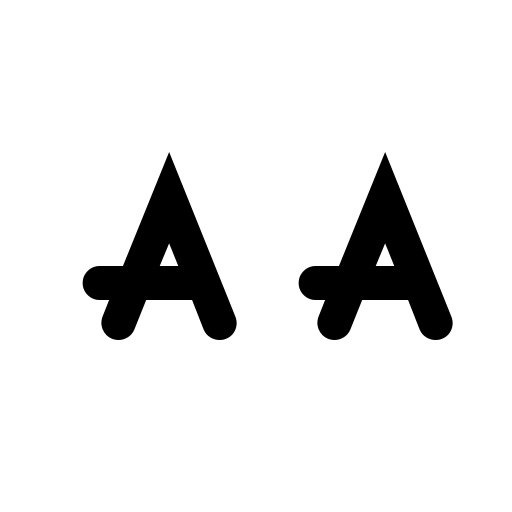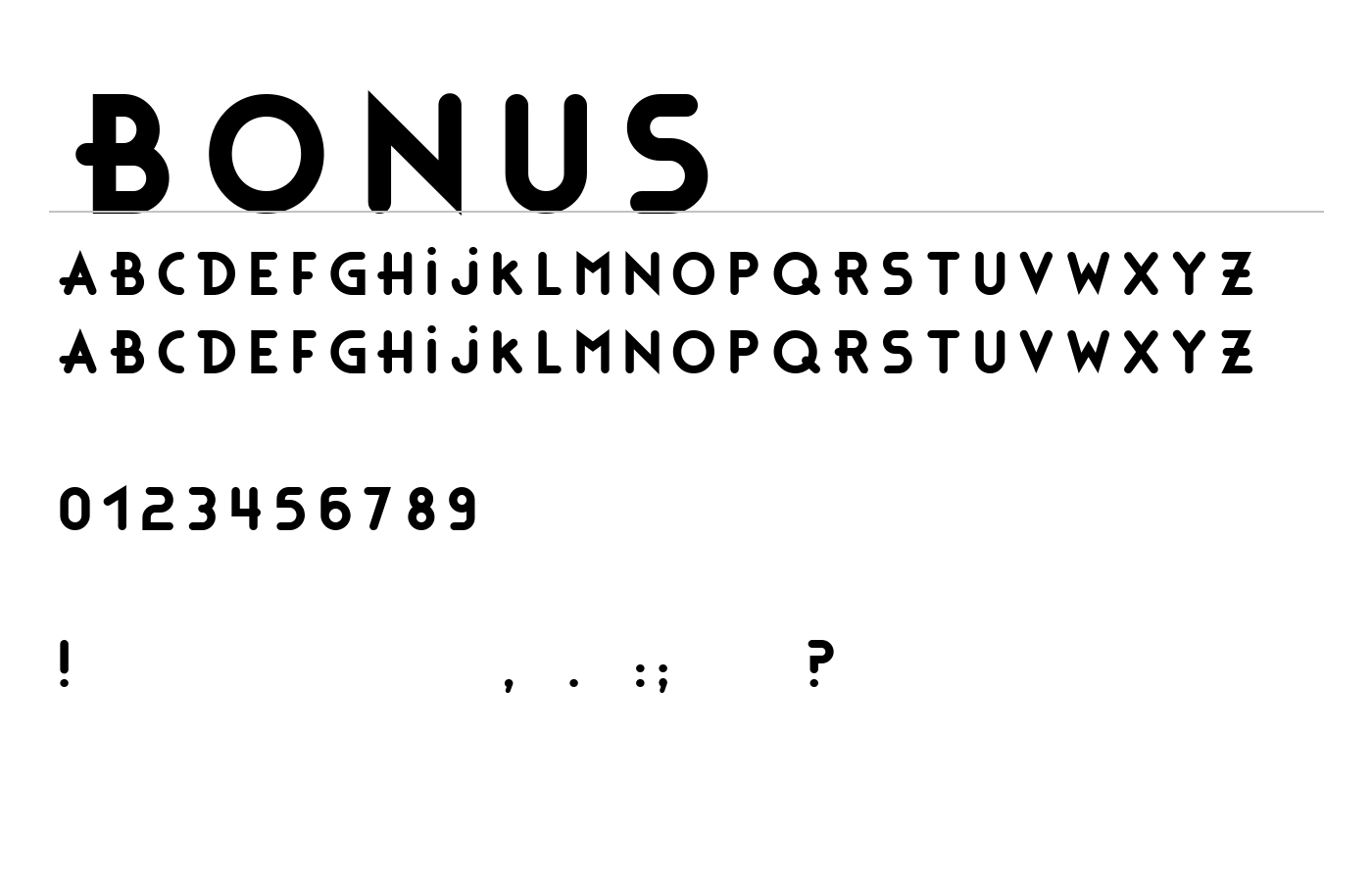
Bonus Font is a playful and modern sans serif with bold, rounded strokes and a unique geometric flair. Its distinctive letterforms and high x-height make it ideal for eye-catching headlines, logos, and branding that seeks a friendly, approachable vibe. This font works well in creative and informal contexts where personality and readability are key.
Bonus Font
About Bonus Font
| Font family | Bonus Font |
| Designer | BC |